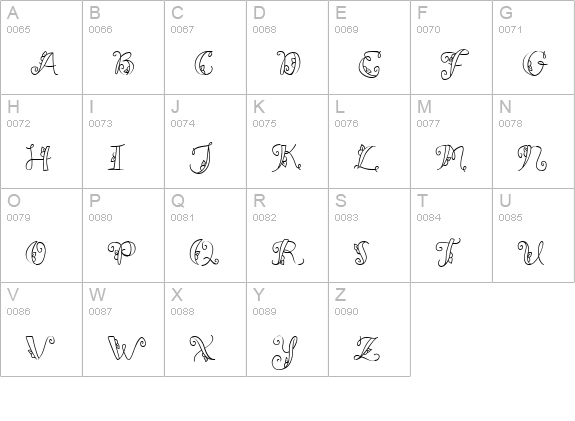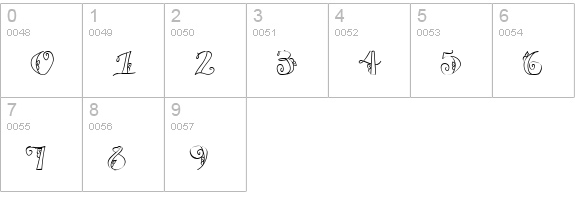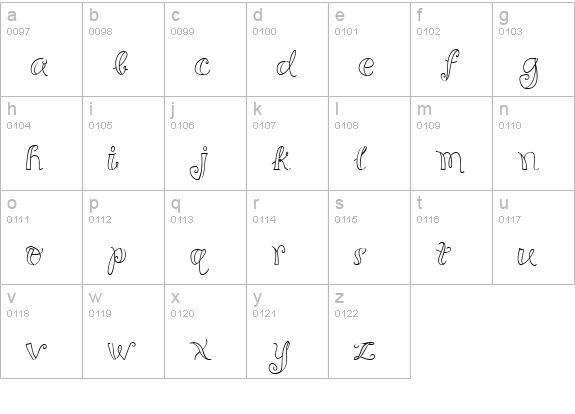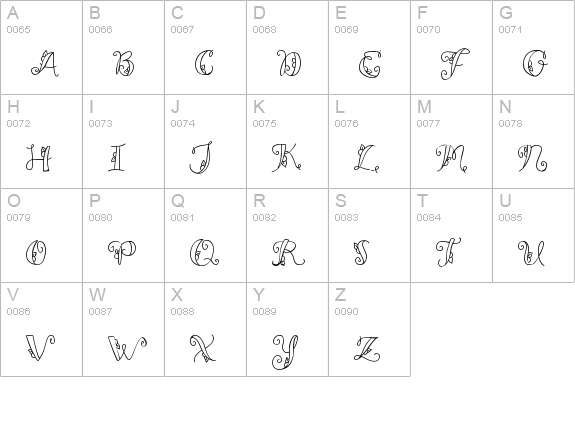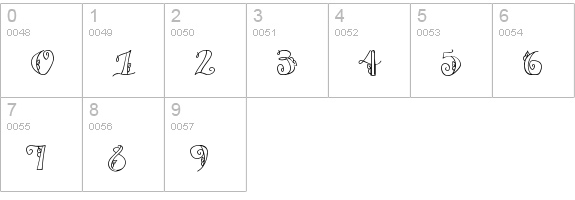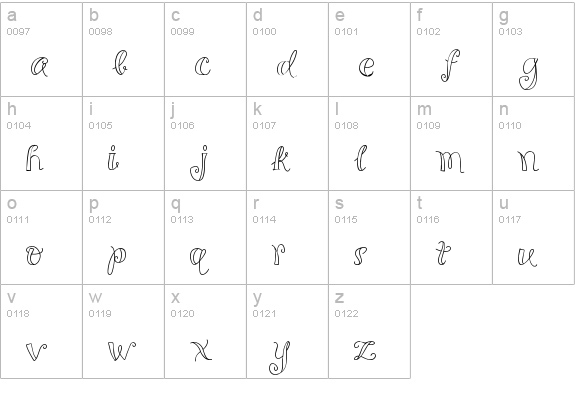
CK Peeking Posies Font Details
Introducing CK Peeking Posies font - a whimsical and charming typeface that will add a touch of playfulness to your designs. This font features delicate floral elements intertwined with elegant letterforms, creating a unique and eye-catching look. Perfect for invitations, greeting cards, branding, and more, CK Peeking Posies font exudes a sense of creativity and beauty. And the best part? CK Peeking Posies font is available for free download at FontsMarket.com! Whether you're a professional designer looking to add a fresh twist to your projects or a hobbyist in need of a creative tool, this font is the perfect choice. Don't miss out on the opportunity to enhance your designs with the enchanting CK Peeking Posies font - download it today and let your creativity bloom!